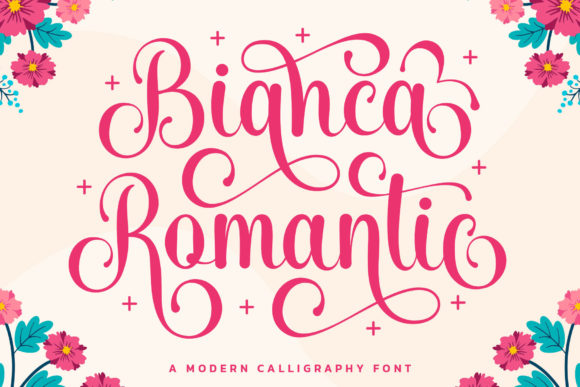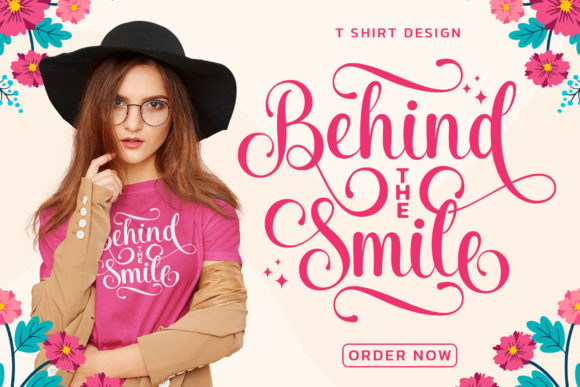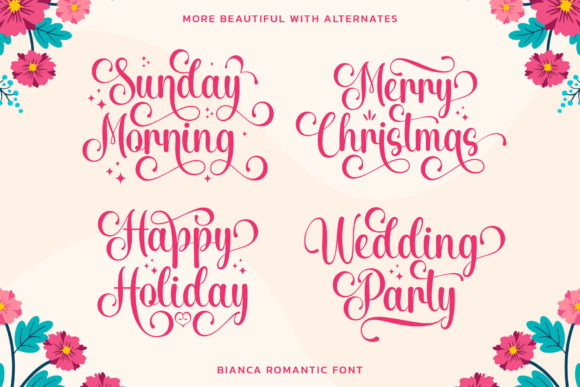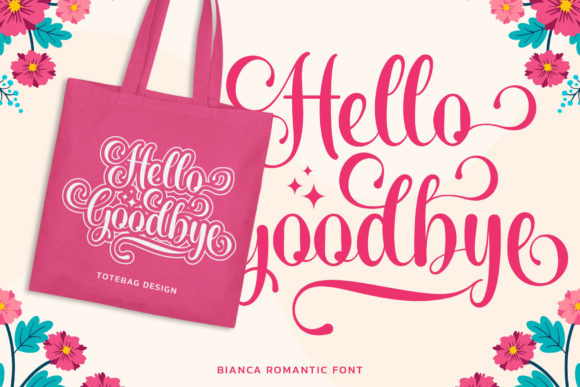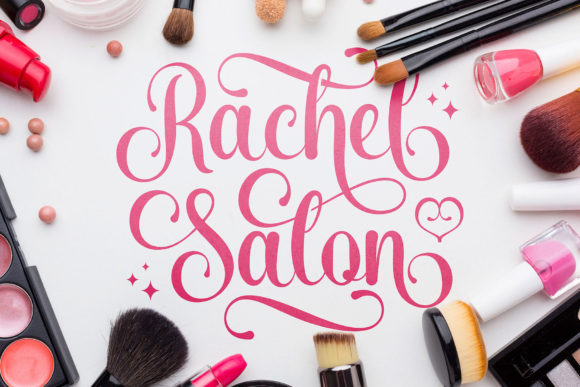
About Bianca Romantic Font
Bianca Romantic is a beautiful and unique script font. It has a classy, elegant and modern look that can be used for logos, branding, invitations, stationery, wedding designs, social media posts, and much more!